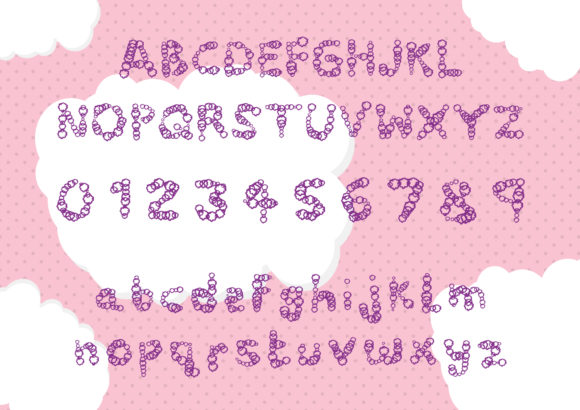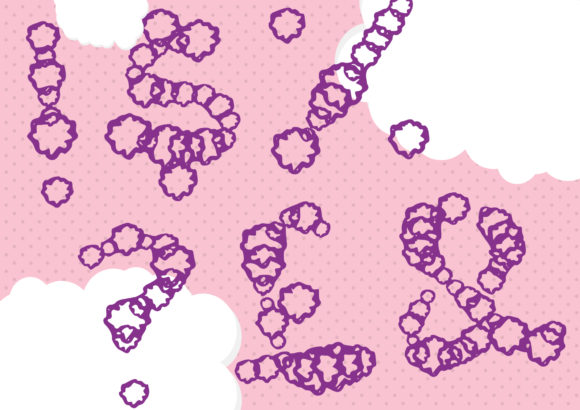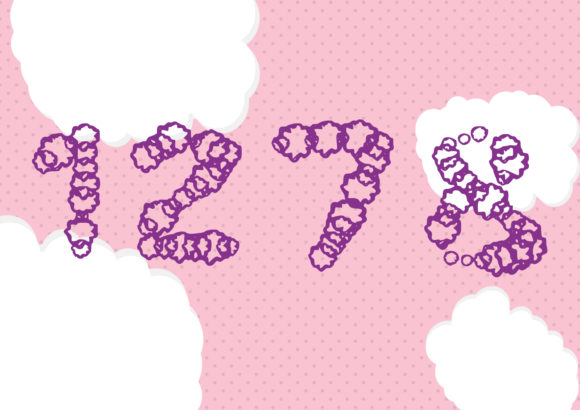
Introduction to Little Puff Font
Little Puff is an incredibly interesting and unique display font.
A little bit quirky, this font looks adept on a wide variety of contexts .